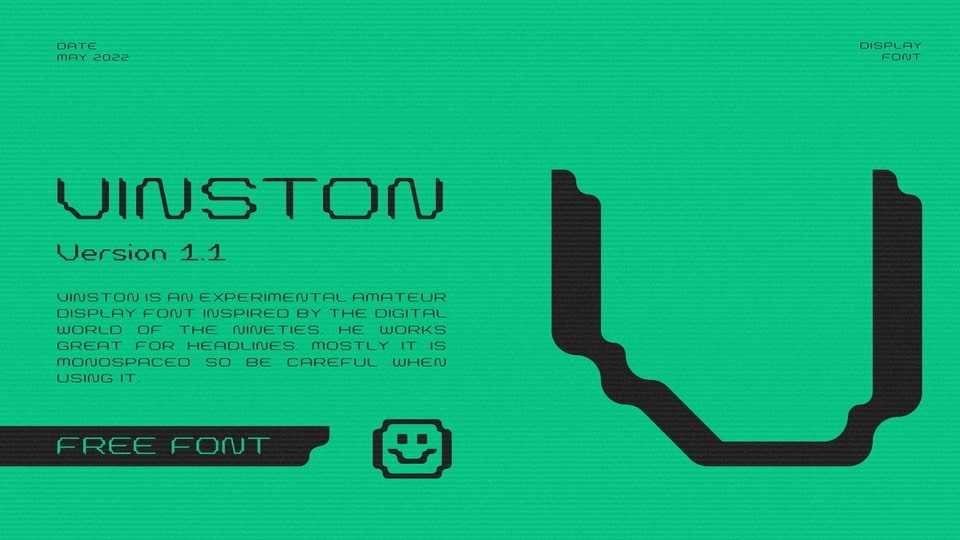
Download Vinston font, an experimental amateur display typeface inspired by digital world of the nineties. Vinston works great for headlines. Mostly it is monospaced so be careful when using it.
Designer: Damian Leśniowski